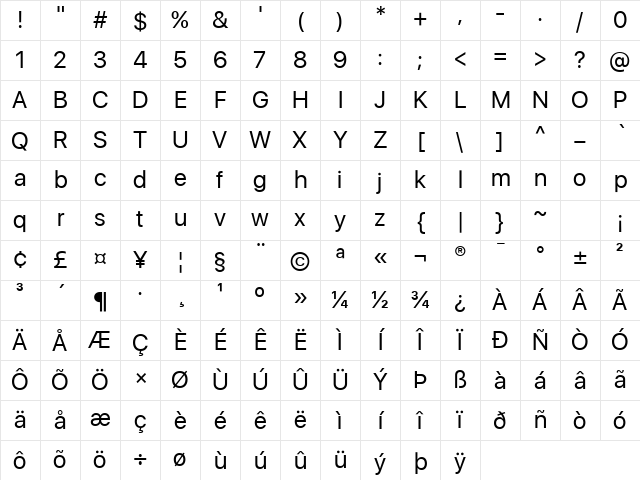
SFNS Display Regular
Foundry: Apple Inc.
Designer: Apple Inc.
SFNS Display Family
Complete SFNS Display Regular glyph index. Displaying only characters natively supported by SFNS Display Regular font.
Design Context for SFNS Display
SFNS Display is built around its visual character rather than neutral utility - its distinctive forms are designed to make an impression at display sizes.
Font Pairing: Pair with a clean neutral sans-serif for body copy to let SFNS Display's character lead without overwhelming the composition.
Pro Tip: Use SFNS Display exclusively at display sizes - it was designed to be seen, not read at length. Let a neutral companion handle body copy.